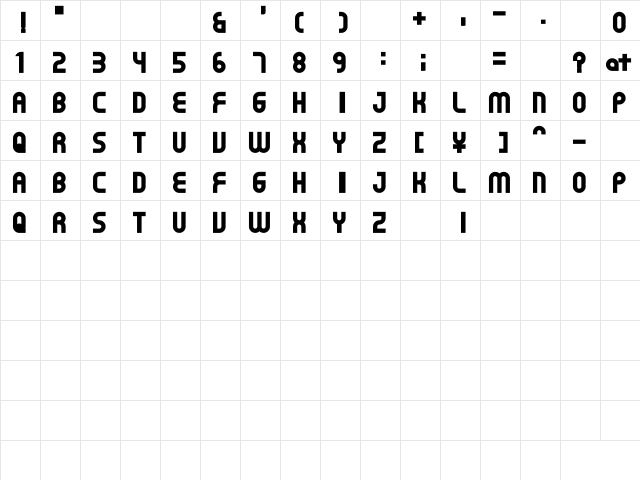
Gear Proportion Regular
Design Context for Gear Proportion Typeface
Gear Proportion takes a measured approach to typography — its balanced proportions and neutral character make it a reliable workhorse for both digital and print work.